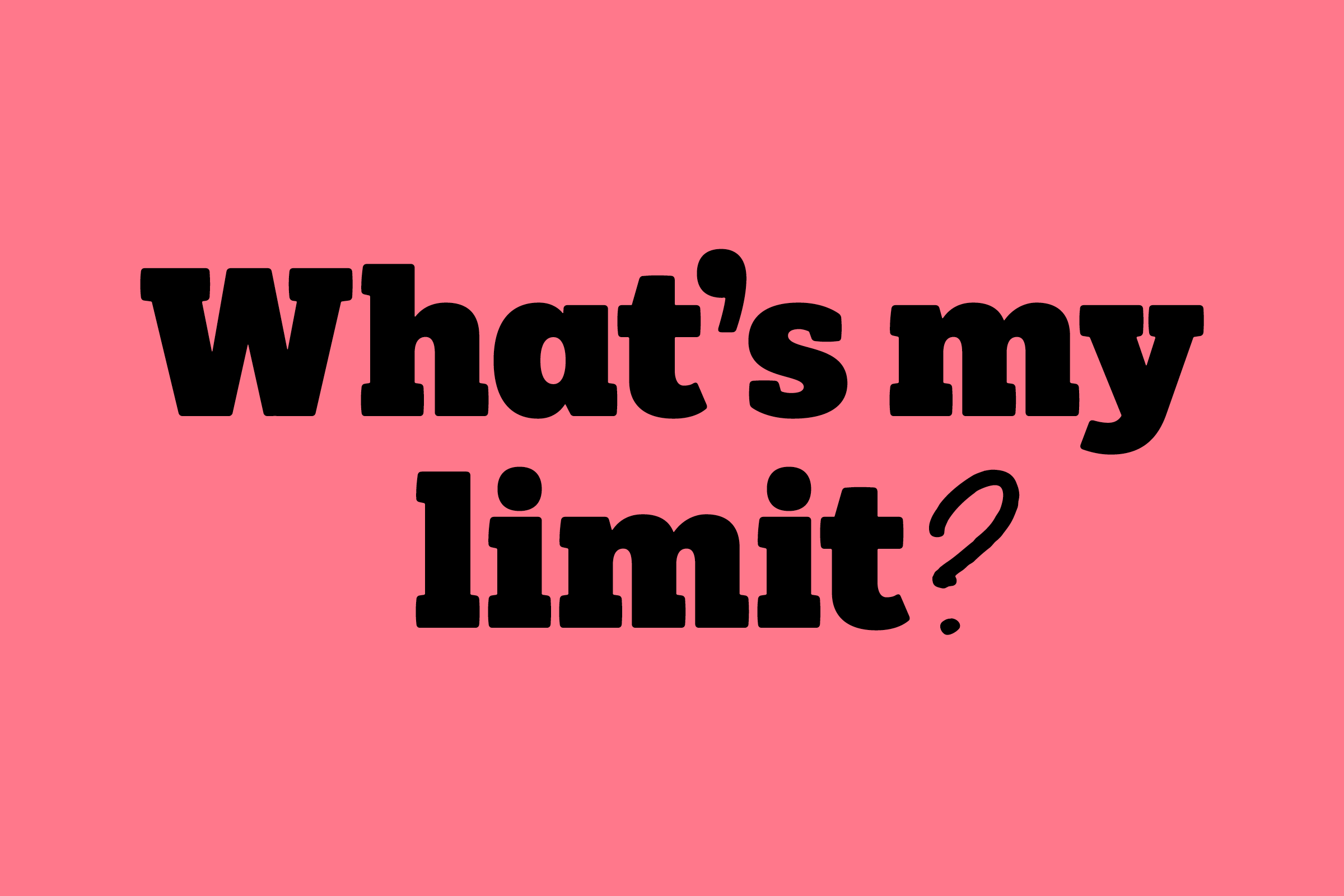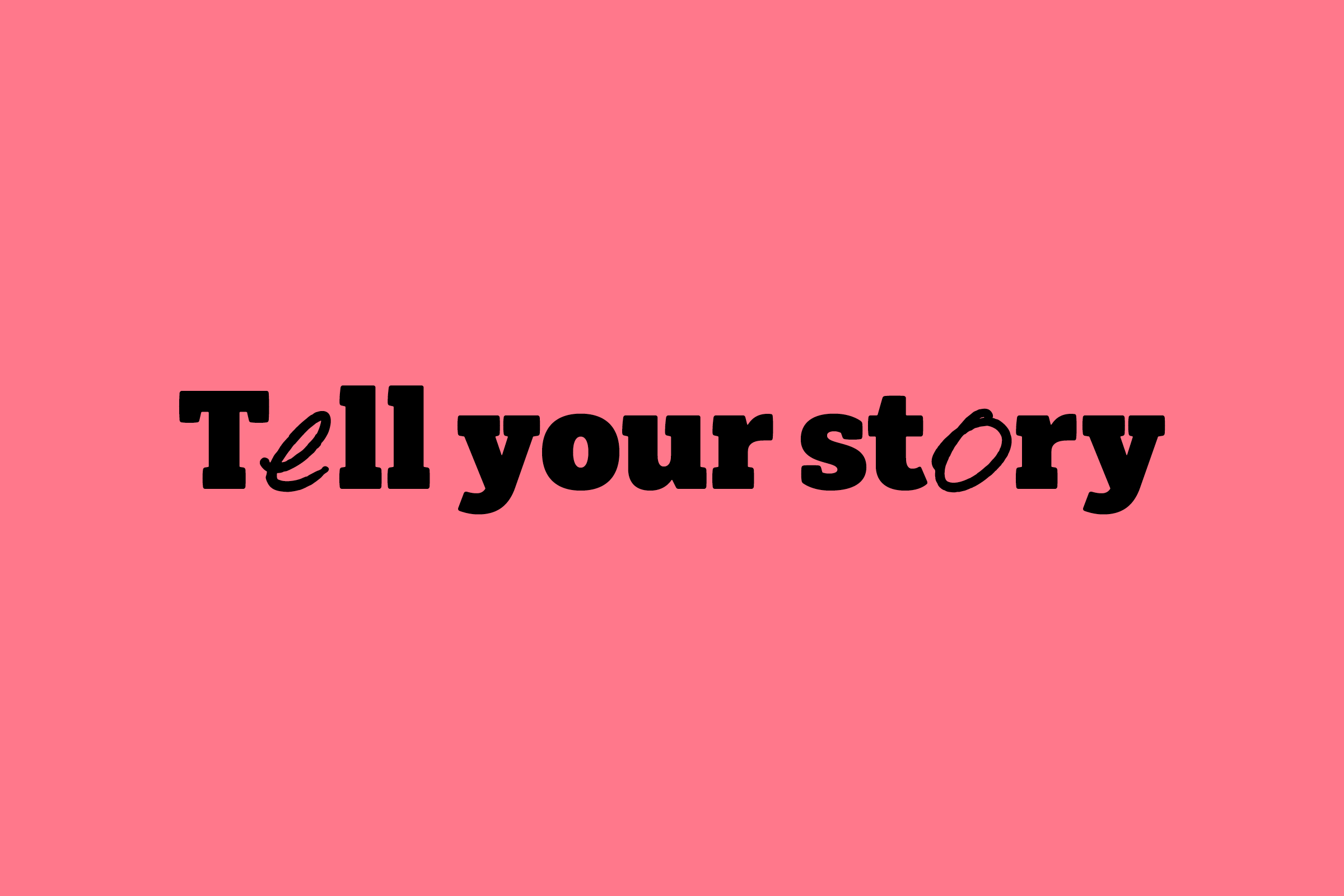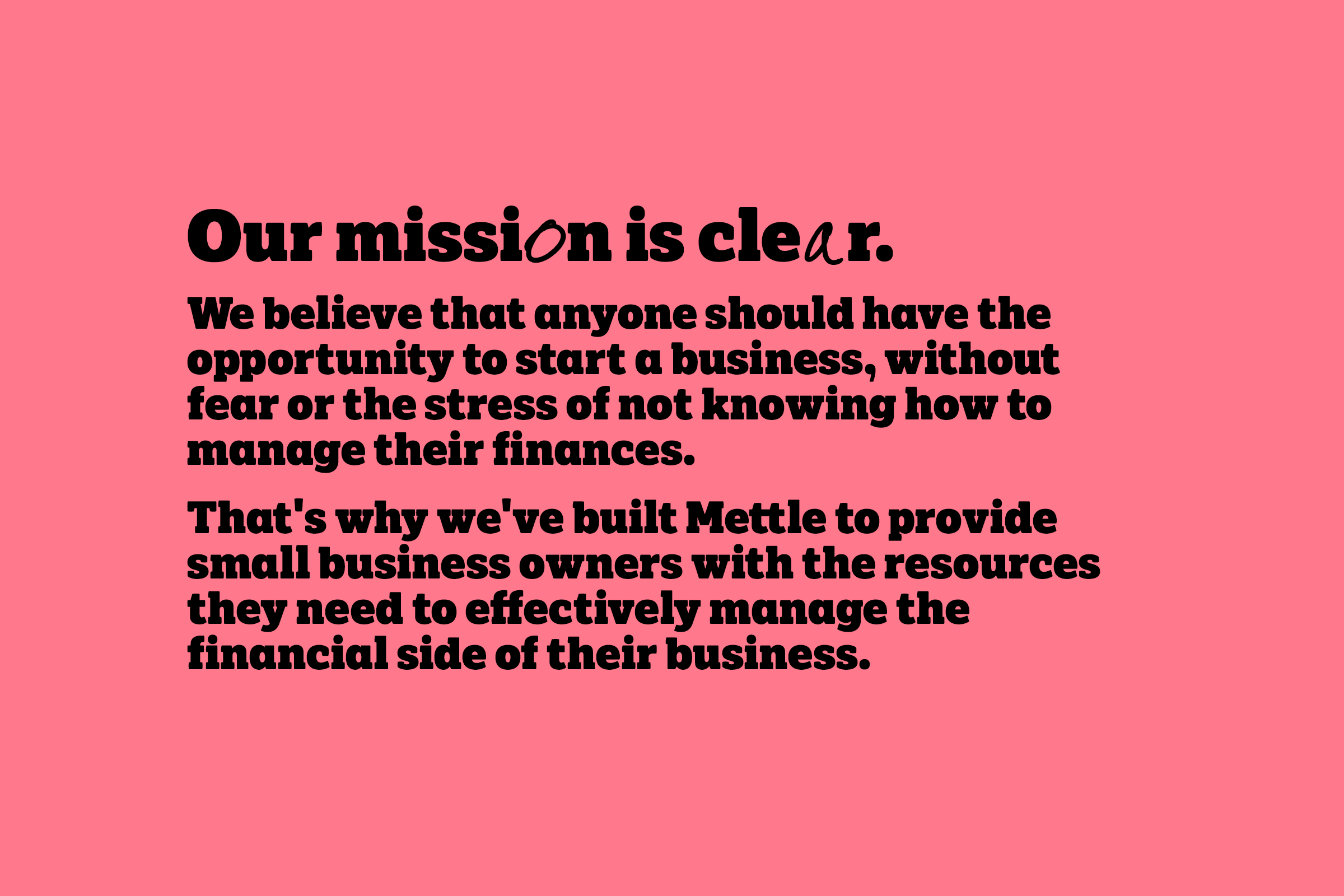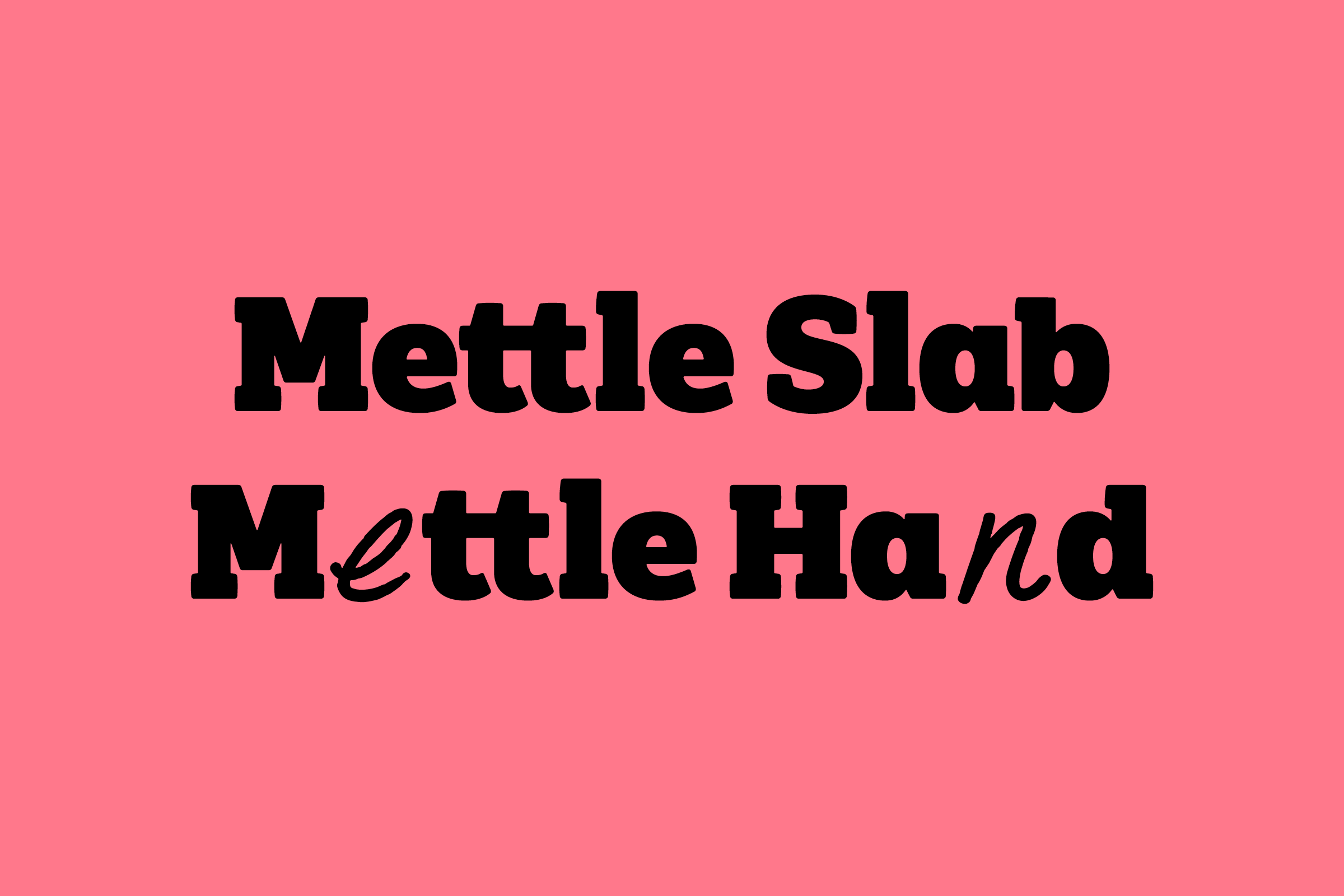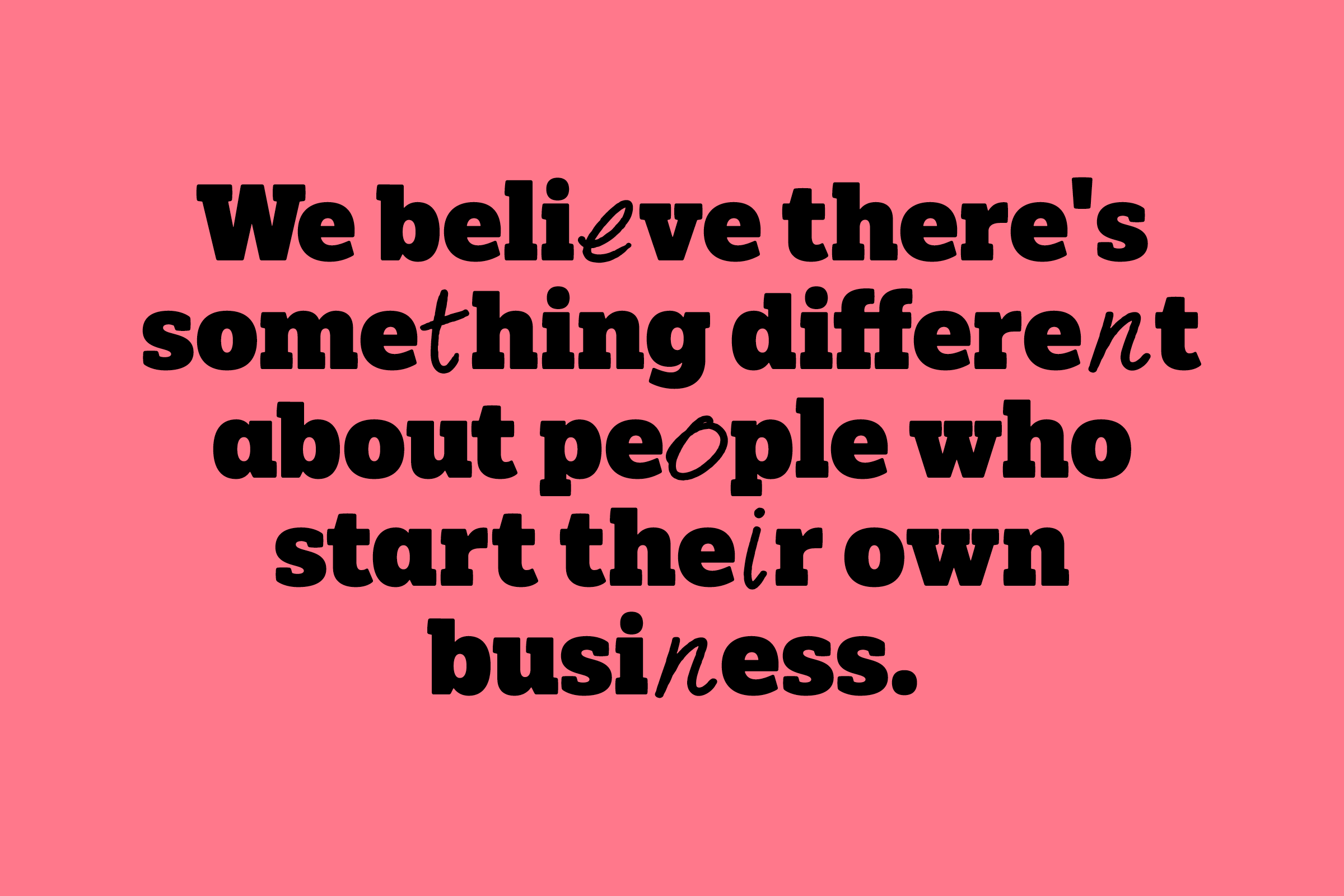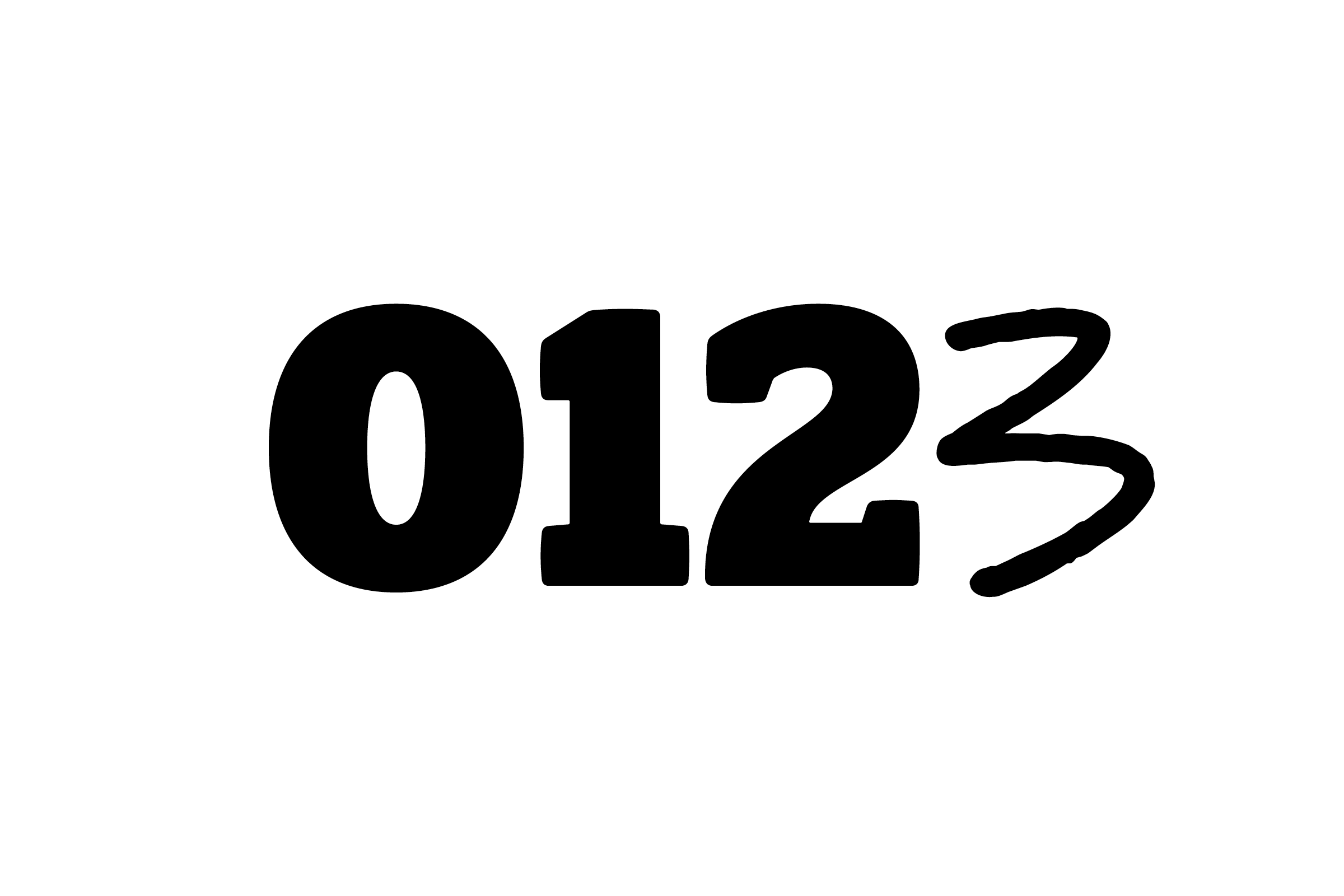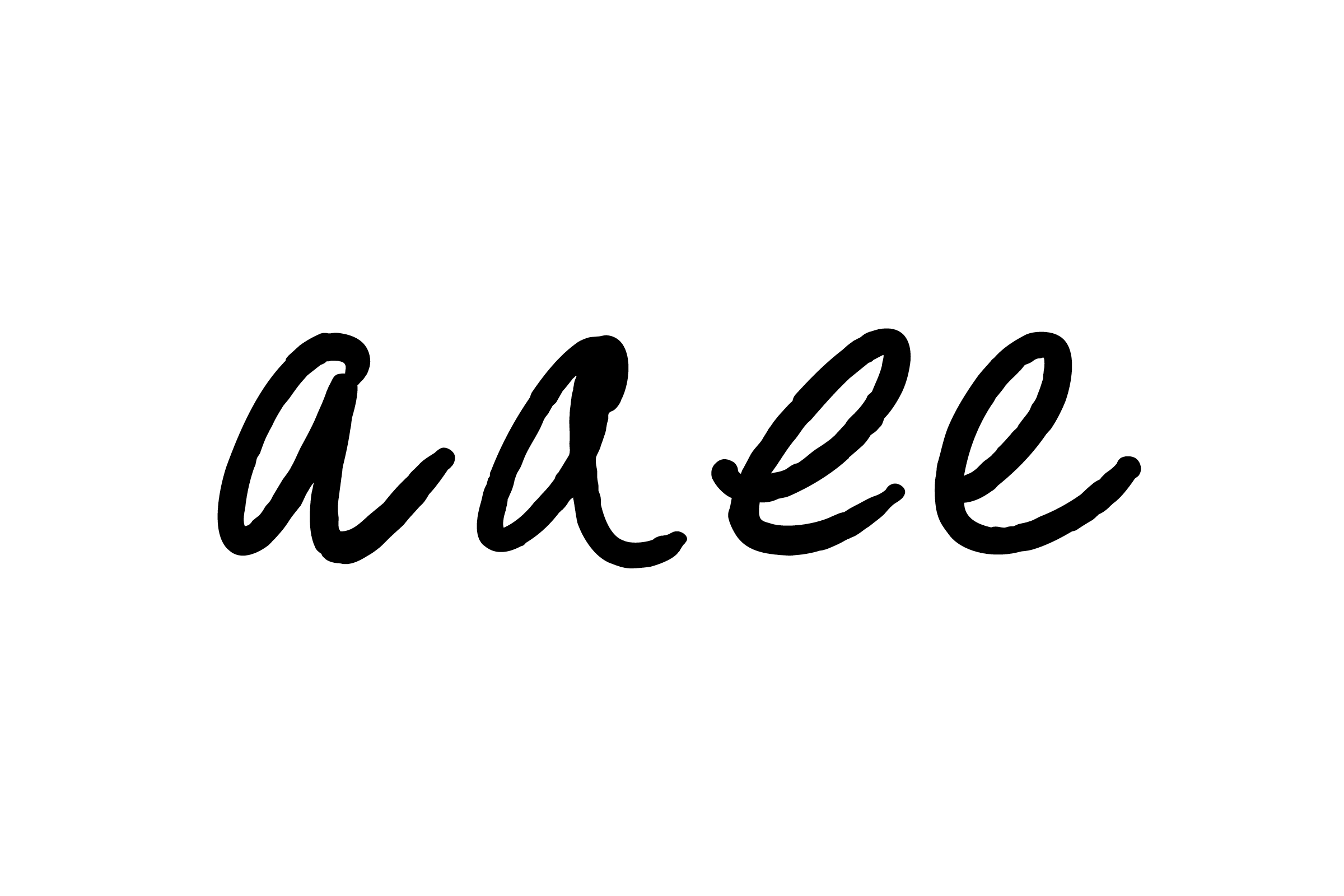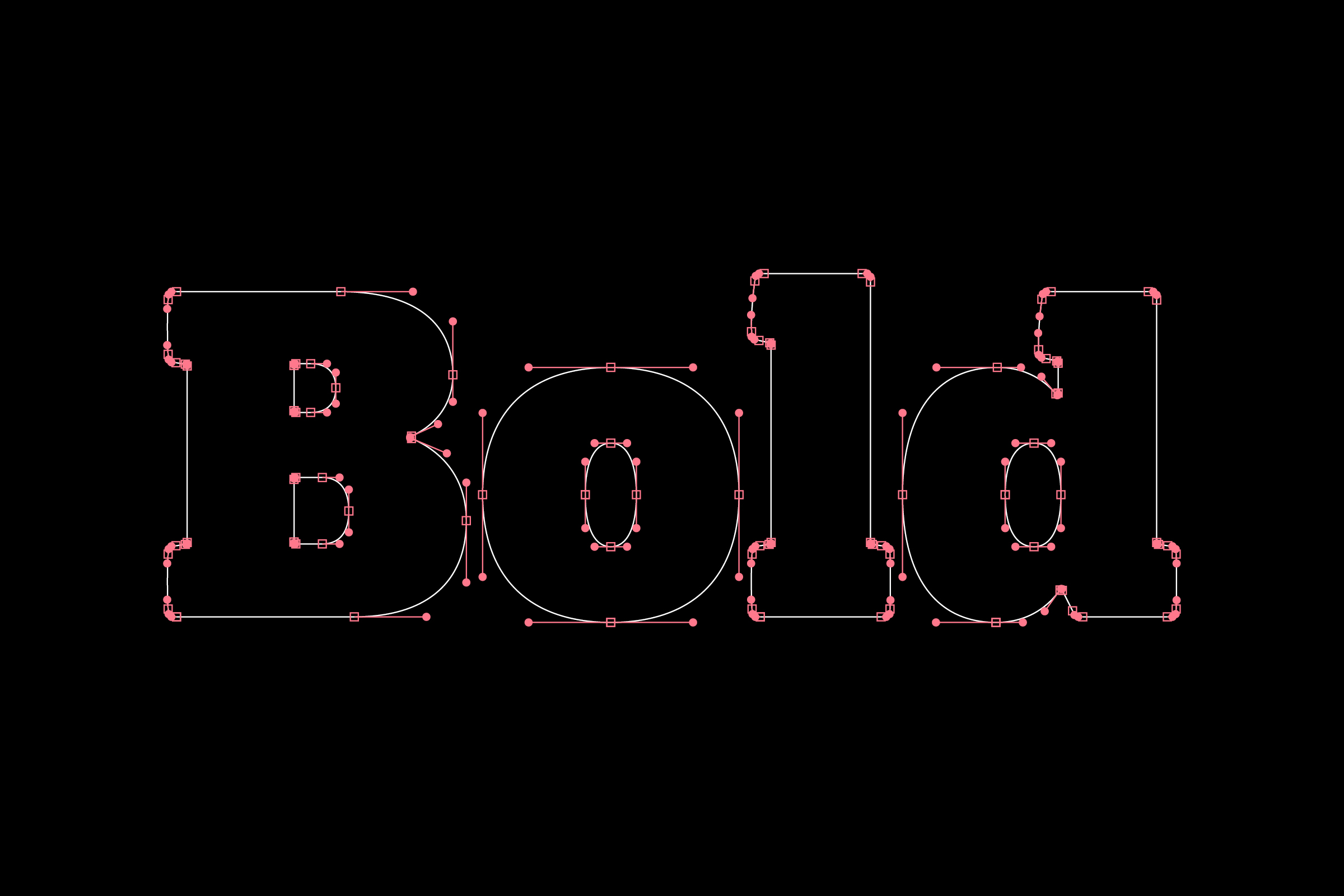
When online bank Mettle approached us for a custom typeface, our first step was to look beyond the brief and understand their values. The banking sector requires careful consideration, but as part of NatWest Group – which ranks highly in Tortoise Media's Responsibility100 Index for sustainability and ethical practices – Mettle aligned with our own standards.
Assured by their commitment to responsible banking, we created something distinctive: Mettle Slab, a bold typeface that brings personality to financial services without compromising trust.
The design comes in two versions – a traditional cut that maintains authority, and an experimental version that randomly introduces hand-drawn characters through OpenType features, adding a human touch to digital banking.
For each letter in the hand-drawn set, we created multiple variations that are selected at random, ensuring the typography feels naturally imperfect rather than mechanically repetitive.
Rogue Oat needed to stand out in the crowded alternative milk market, where shelf presence can make or break a startup. Working within startup budget constraints, we focused our efforts on creating a bold, custom typeface that could carry the weight of their entire brand identity.
We designed 'bounce' and 'shadow' versions of the typeface to add extra expression and energy. This typographic toolkit gave them both an ownable asset and the versatility to grow their visual identity alongside their business.
The Institute, a new home for Ravensbourne's post-graduate courses, sits within London's Design District on Greenwich Peninsula. The building's bold architectural grid became our inspiration for a complete visual system, culminating in a custom monospaced typeface.
The bespoke font translates the building's structural rhythm into typography, where each character occupies an identical space within a strict grid system. The result is more than just a typeface – it's an architectural principle transformed into a working design tool that expresses the Institute's commitment to systematic thinking and creative precision.
Created in 2008 for a contemporary interiors shop, this display typeface draws inspiration from the revolutionary modular letterform experiments of the Bauhaus, particularly Joseph Albers' stencil-based alphabets of the 1920s.
By embracing these fundamental geometric principles, we created a typeface that speaks to both modernist heritage and contemporary design sensibilities. Its deliberately reduced forms – built from simple circles and rectangles – give it a timeless quality that continues to feel fresh more than a decade and a half later.
This lasting relevance mirrors The Lollipop Shoppe's own careful curation of classic design pieces, proving that good design, whether in furniture or typography, transcends trends.
The typeface allowed The Lollipop Shoppe to maintain a consistent brand presence across all touchpoints without relying on heavy-handed logo placement – price tags, signage, and communications all carry the brand's DNA through the typography.